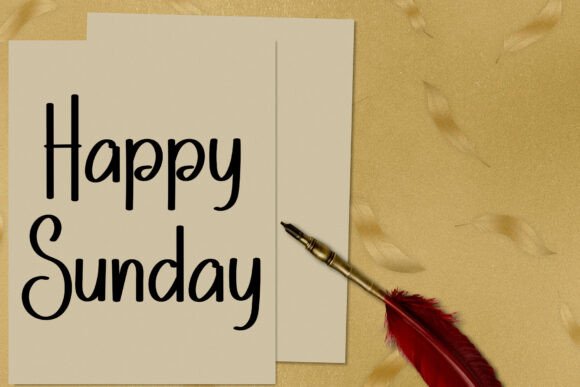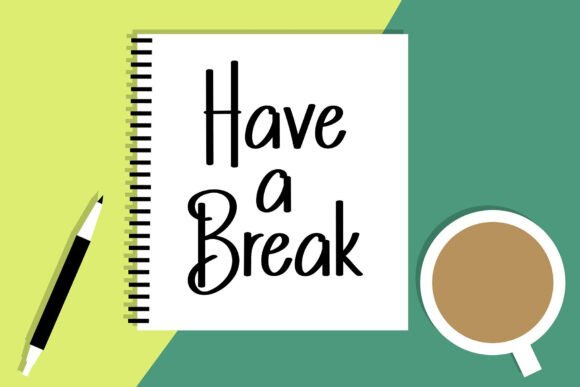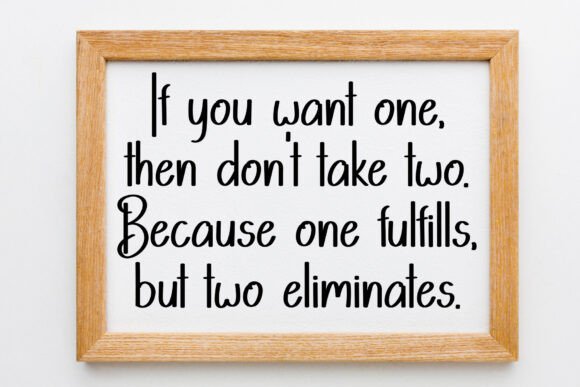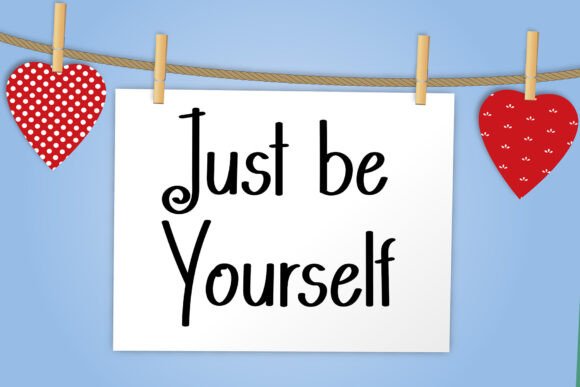
Discover the Charm of Buttercup Font: Elevate Your Designs with a Timeless Handwritten Style
Are you on the hunt for a font that adds a touch of elegance and whimsy to your designs? Look no further than the lovely Buttercup Font. This beautiful, handwritten font is perfect for creating eye-catching logos, branding materials, and quotes that will leave a lasting impression. With its unique and beautiful touch, Buttercup Font is sure to make your design come alive!
The Beauty of Buttercup Font
Buttercup Font is a stunning example of a handwritten font that exudes charm and sophistication. Every letter has been carefully crafted to showcase a distinctive and beautiful touch, making it perfect for designers and crafters looking to add a personal touch to their work. Whether you’re creating a logo, branding materials, or social media graphics, Buttercup Font is the ideal choice.
Why Choose Buttercup Font?
So, what sets Buttercup Font apart from other fonts? Here are just a few reasons why designers and crafters love working with this lovely font:
- Unique and Beautiful Touch: Every letter in Buttercup Font has been carefully crafted to showcase a unique and beautiful touch, making it perfect for adding a personal touch to your designs.
- Timeless Style: Buttercup Font has a timeless quality that ensures your designs will never go out of style. Whether you’re creating a logo, branding materials, or quotes, this font is sure to remain a classic choice.
- Elegant and Whimsical: Buttercup Font strikes the perfect balance between elegance and whimsy, making it perfect for a wide range of design applications.
- Ease of Use: Buttercup Font is easy to use and pairs well with a variety of other fonts, making it simple to incorporate into your existing design workflow.
Buttercup Font is a versatile font that’s perfect for a wide range of design applications, including:
- Logo Design: Create a lasting impression with a custom logo that showcases the unique and beautiful touch of Buttercup Font.
- Branding Materials: Elevate your branding materials, including business cards, brochures, and letterheads, with the elegant and whimsical style of Buttercup Font.
- Quotes and Social Media Graphics: Add a touch of personality to your quotes and social media graphics with the charming and sophisticated style of Buttercup Font.
- Crafting and DIY Projects: Buttercup Font is also perfect for crafters and DIY enthusiasts looking to add a personal touch to their projects, including handmade cards, scrapbooking, and more.
Tips for Using Buttercup Font
To get the most out of Buttercup Font, here are a few tips to keep in mind:
- Experiment with Font Sizes: Buttercup Font looks great in a variety of font sizes, so don’t be afraid to experiment to find the perfect size for your design.
- Pair with Other Fonts: Buttercup Font pairs well with a variety of other fonts, so try pairing it with different fonts to create a unique and visually appealing design.
- Use for Headlines and Titles: Buttercup Font is perfect for headlines and titles, where its elegant and whimsical style can really shine.
In conclusion, Buttercup Font is a lovely and timeless handwritten font that’s perfect for designers and crafters looking to add a touch of elegance and whimsy to their designs. With its unique and beautiful touch, Buttercup Font is sure to make your design come alive! So why wait? Download Buttercup Font today and start creating stunning designs that will leave a lasting impression.